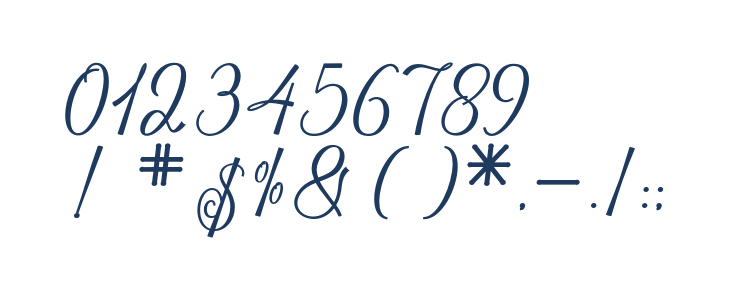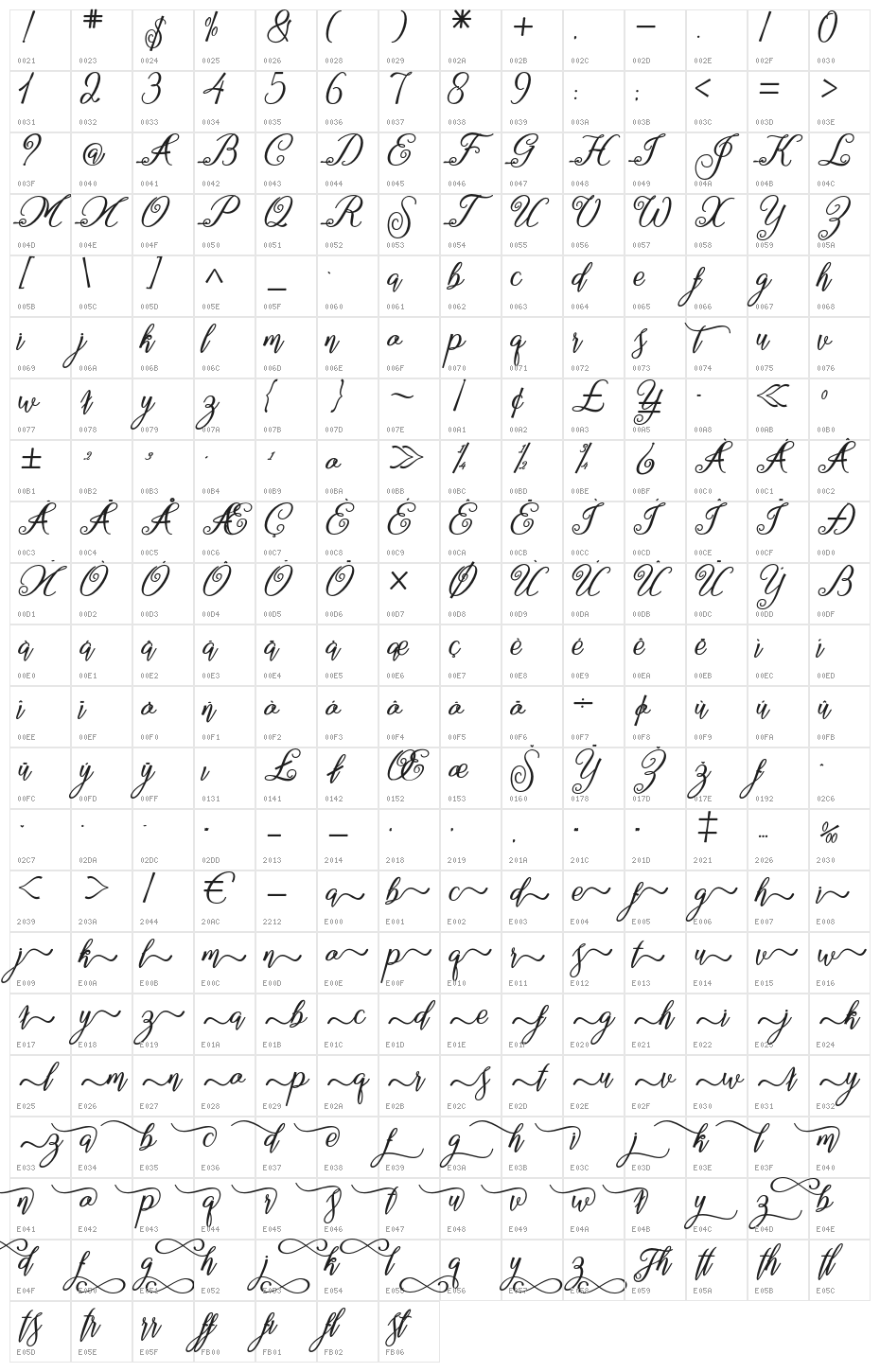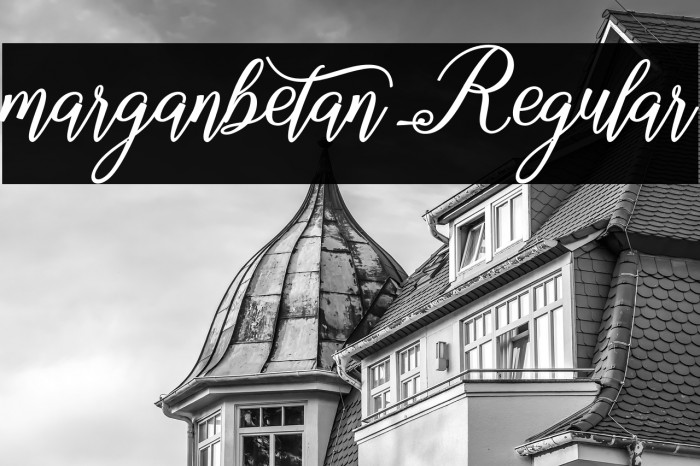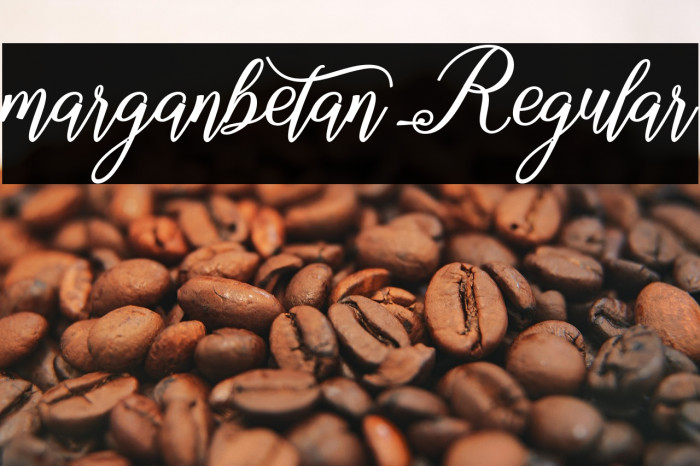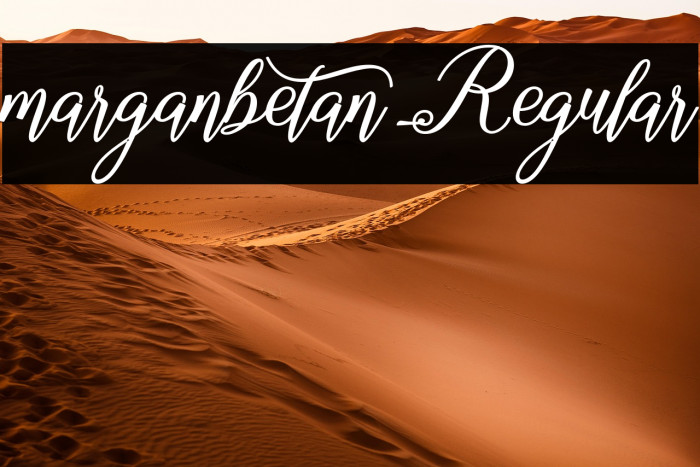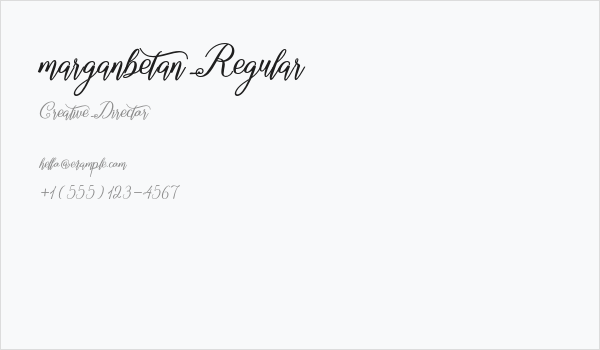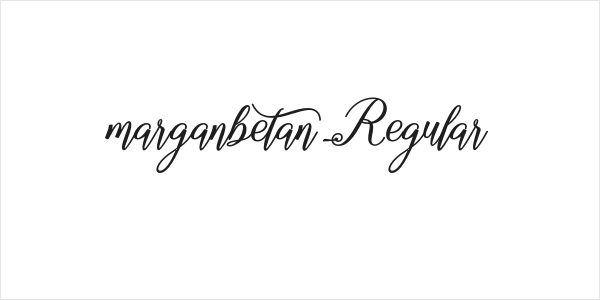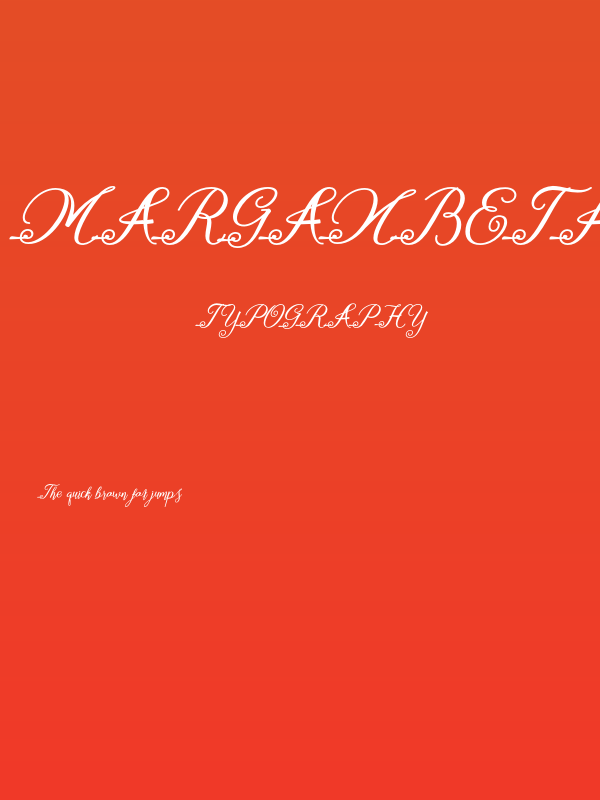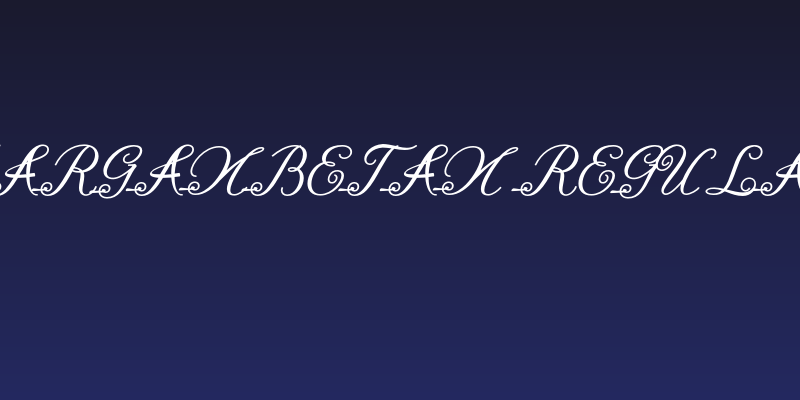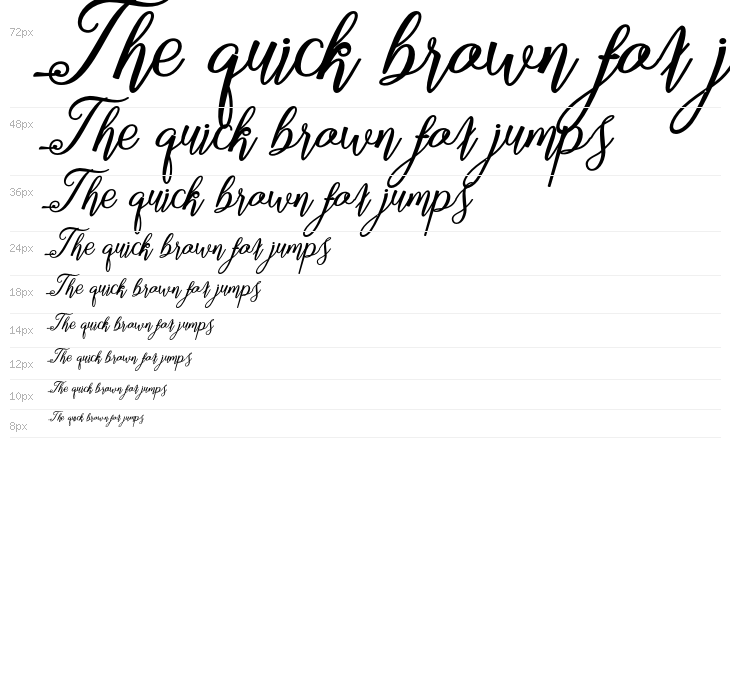
marganbetan Regular Font
marganbetan Regular Description
This elegant script font features a flowing, cursive style with intricate swirls and loops, particularly in the uppercase letters. The lowercase letters maintain a smooth, connected appearance, enhancing the font's graceful aesthetic. The numerals and special characters are designed with a similar flair, ensuring consistency across all glyphs. The font's overall look is sophisticated and decorative, making it ideal for projects that require a touch of elegance and refinement.
| Proposed Projects | Ideal for wedding invitations, greeting cards, branding, and elegant logo designs. |